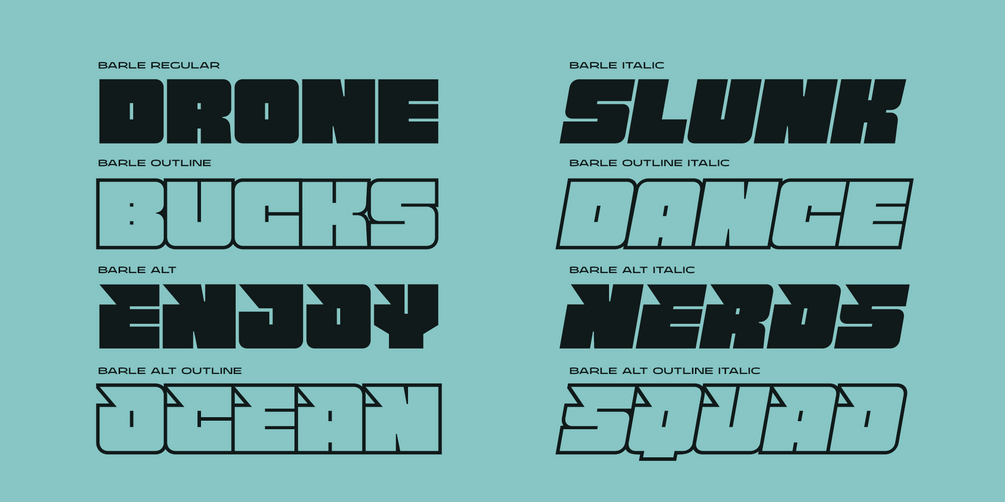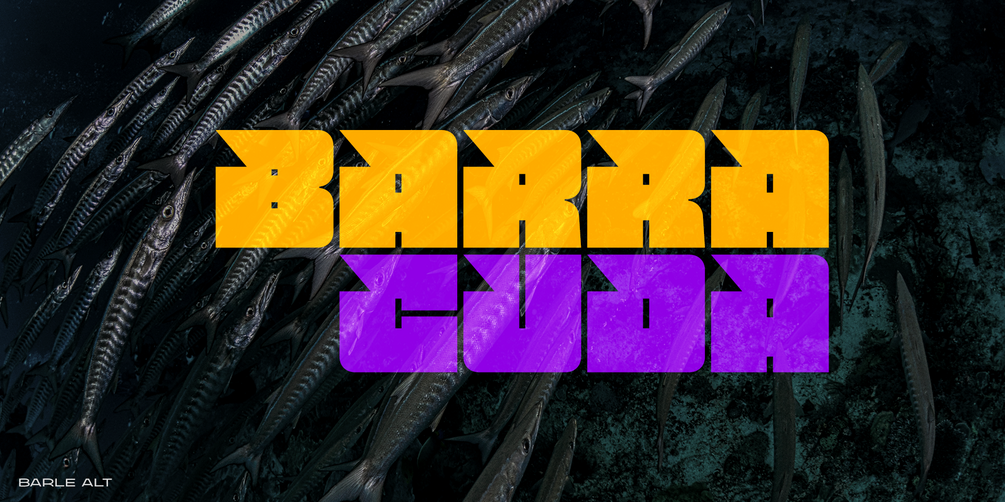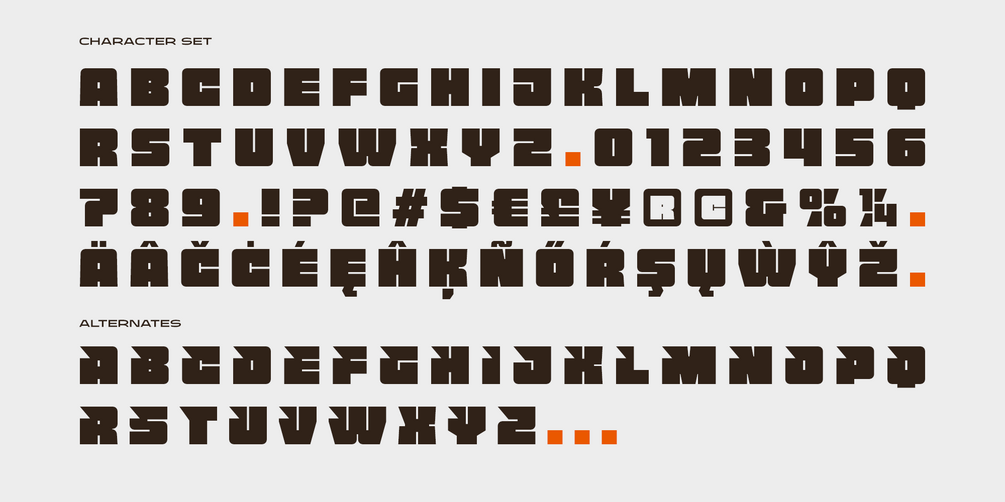
Barle - Fat Font
Big is beautiful. Barle font has an extremly heavy weight and wide shape. A sans-serif display font that's perfect for large headlines, posters, packaging and any graphic design that requires a font that will stand out to audiences.
Barle font has two faces, a standard character and a sliced version which can be accessed through the Stylistic Alternates feature. This font consists of 4 fonts; upright and italic style in the normal version and the outlined version. If you just want to use the sliced version, you just need to purchase Barle Alt version.